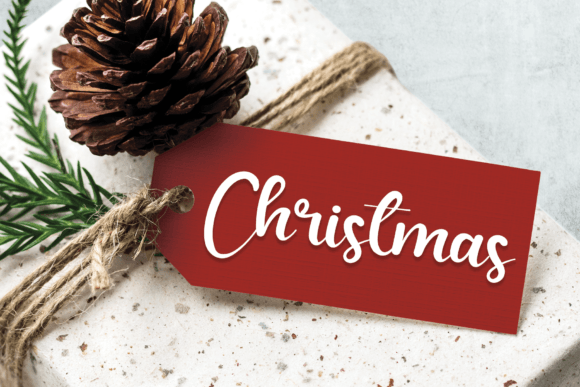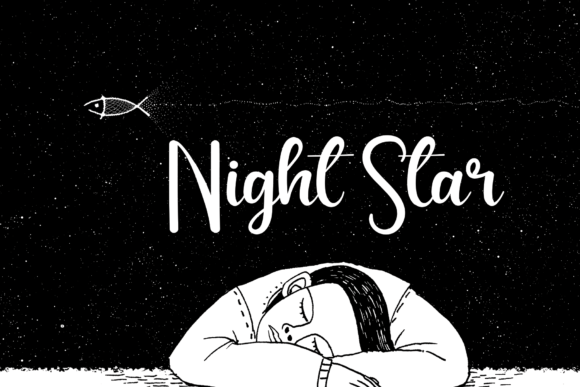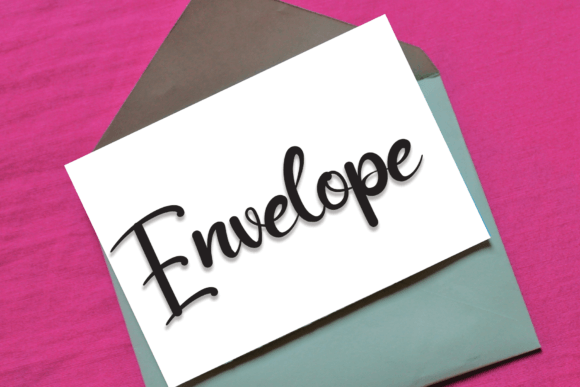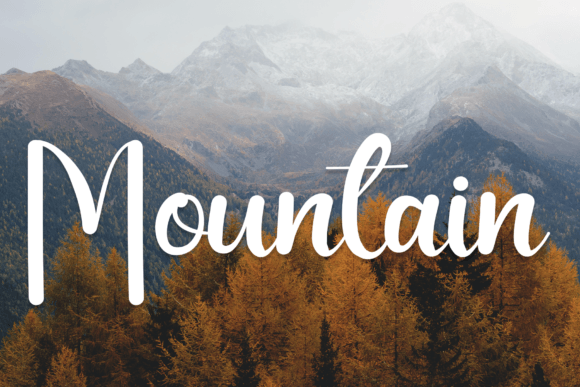
Bible Font
About Bible Font Download
The Bible Font Download is a fun and friendly handwritten script designed to bring charm, warmth, and personality to your projects. With its smooth handwritten strokes and approachable design, this font works beautifully for both personal and professional use. Whether you are creating greeting cards, branding, or posters, Bible adds playful energy and creativity.
A Handwritten Script with Joyful Energy
The Bible script font blends casual handwritten style with modern balance. As a result, it feels approachable, creative, and versatile. Furthermore, it adapts seamlessly to stationery, digital design, and large-format layouts, which makes it a flexible option for designers.
Handwritten fonts always bring emotional value to stationery projects. The Bible Font is ideal for wedding invitations, thank you notes, birthday cards, and holiday greetings. Because of its friendly handwritten style, every card feels personal and unique. In addition, it ensures that your projects leave a lasting impression.
Branding and Logo Design with Bible Font
Typography has the power to define brand identity. The Bible handwritten font is excellent for boutique logos, packaging, and promotional designs. Its playful handwritten strokes give businesses a creative yet professional tone. Therefore, it is especially effective for lifestyle, fashion, and craft-related industries.
Posters, Titles, and Editorial Layouts
The Bible Font Download also performs well in posters, magazines, banners, and book covers. It stays clear in all sizes while adding cheerful handwritten charm. Consequently, it is a dependable choice for designers who want balance between creativity and legibility.
In today’s digital-first world, fonts must be flexible and eye-catching. The Bible typeface integrates smoothly into Instagram graphics, Pinterest boards, YouTube thumbnails, and blogs. Because of its fun handwritten energy, it ensures your digital projects look engaging and modern.
Why Designers Choose Bible Typeface
Designers love fonts that balance usability with personality. The Bible handwritten script keeps its playful spirit while remaining easy to read. This makes it suitable for both professionals and hobbyists. Moreover, its timeless handwritten look ensures it will stay relevant for future creative projects.
Add Creative Warmth to Your Projects Today